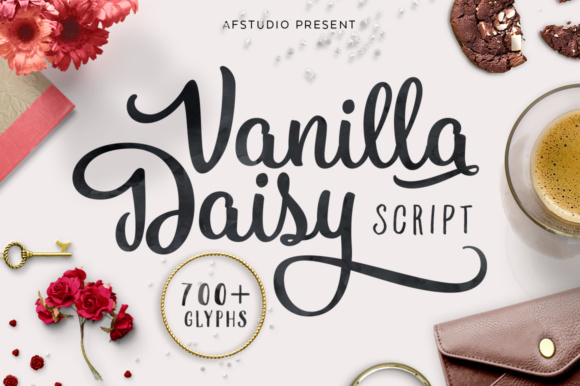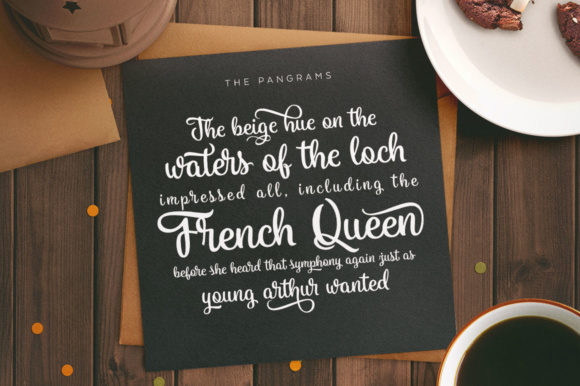
Vanilla Daisy Font
About Vanilla Daisy Font
Vanilla Daisy is a beautiful script font with an elegant appeal that comes with a huge library of alternate characters! This font straddles that line between masculine and feminine designs and can add a unique presence to your work.